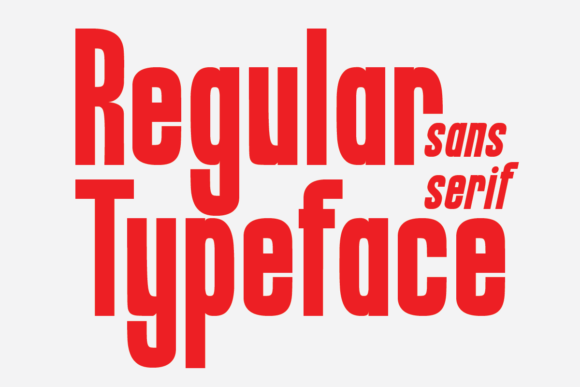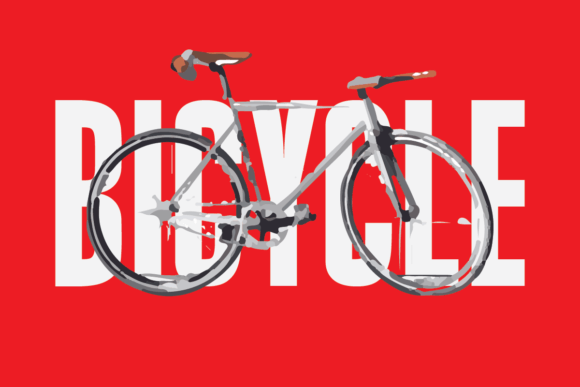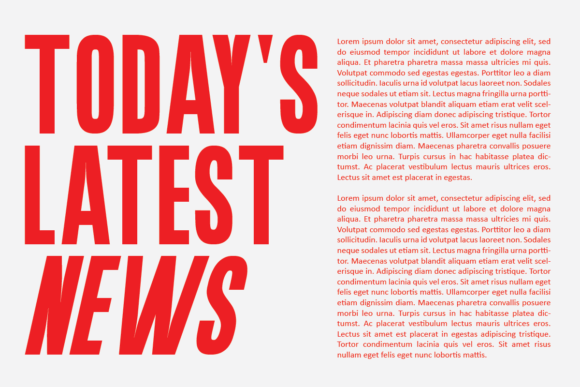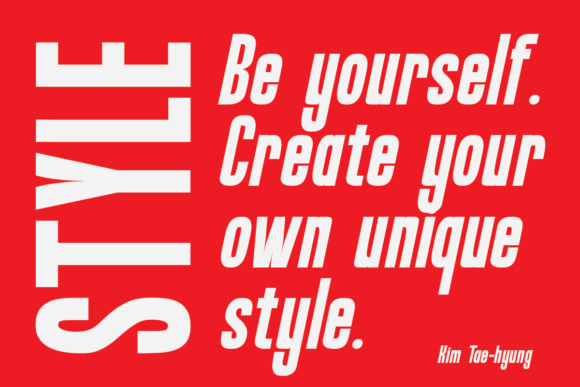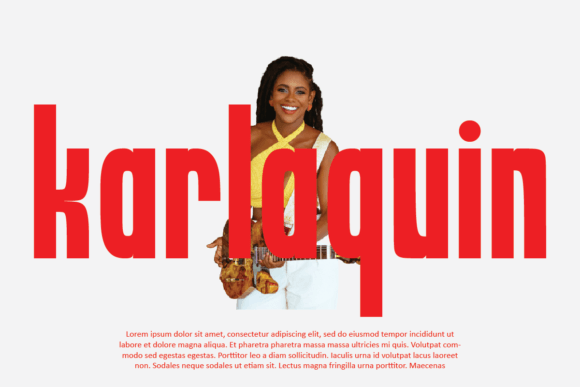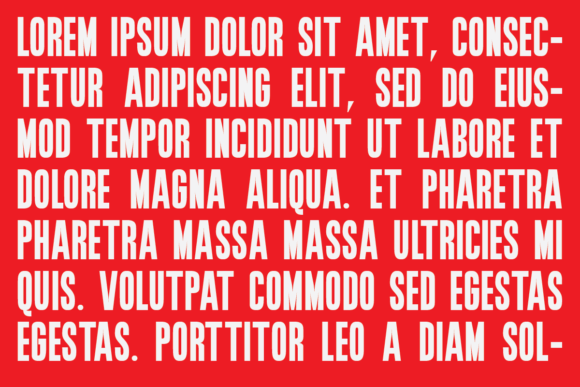
Introduction to Corqen Font
Corqen is a modern and trendy display font.
Incredibly versatile, this font will be suitable for a wide spectrum of applications .
Key Features of Corqen Font
Why Choose Corqen Font?
Corqen Font offers exceptional quality and versatility, making it a valuable addition to your design toolkit. Whether you’re creating for personal projects or commercial use, Corqen Font delivers professional results.